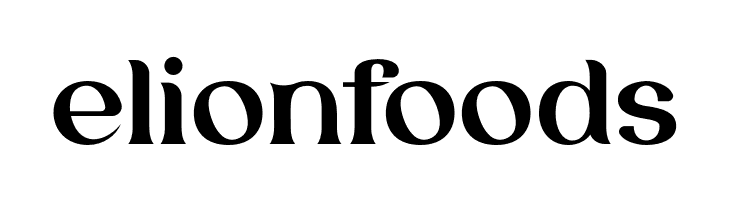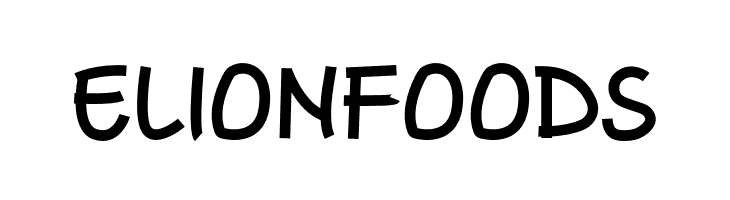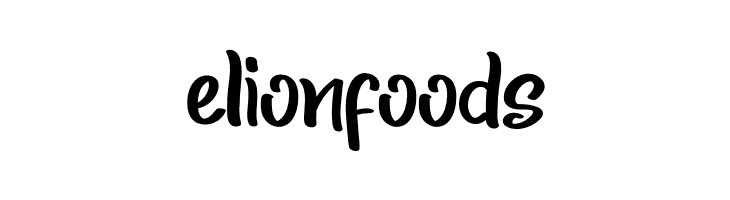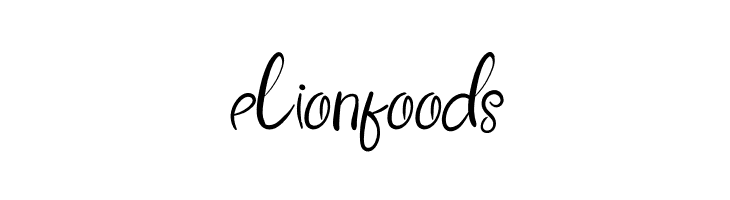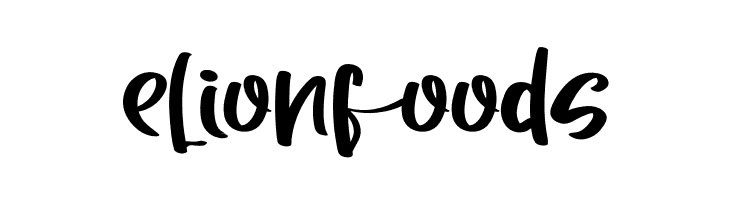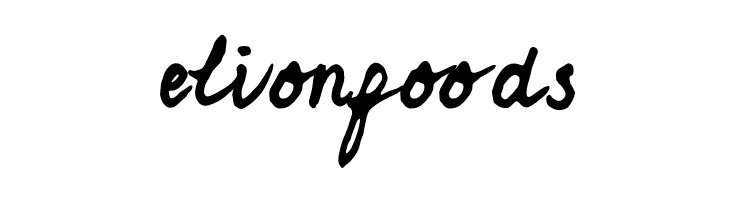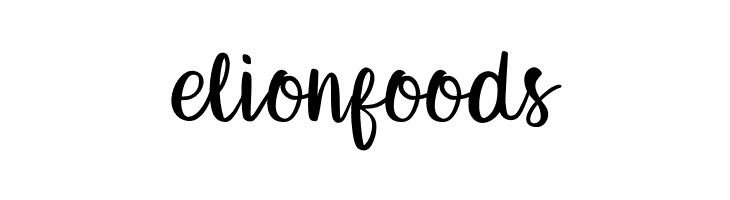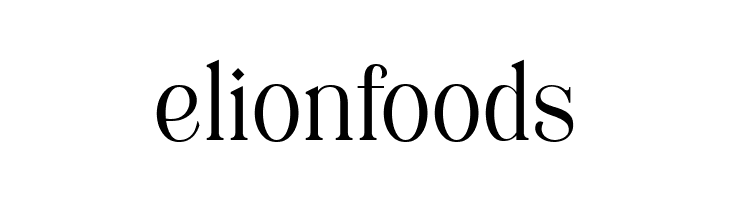
A modern serif font with elegant curves and bold presence.
A bold, dynamic font with brush-like strokes and a playful style.
A bold, playful script font with dynamic and flowing letterforms.
A bold, playful script font with smooth, rounded letterforms.
A playful, handwritten font with a whimsical and elegant style.
A bold, brush-style font with a playful and dynamic hand-drawn appearance.
A bold, expressive handwritten font with dynamic strokes and a casual style.
A playful, flowing script font with smooth, cursive letterforms.
A classic serif font with elegant strokes and high readability.
A sophisticated and flowing script font with elegant curves and flourishes.